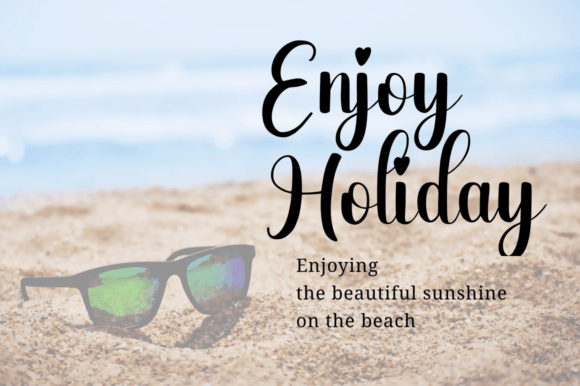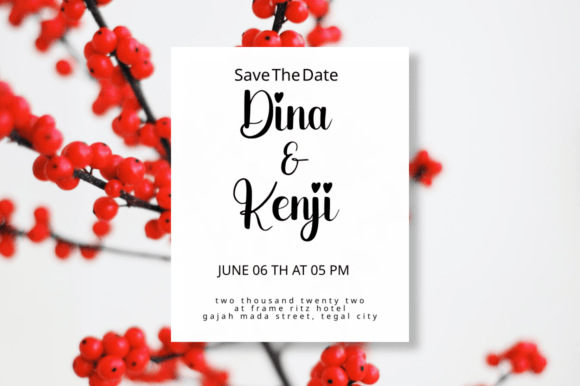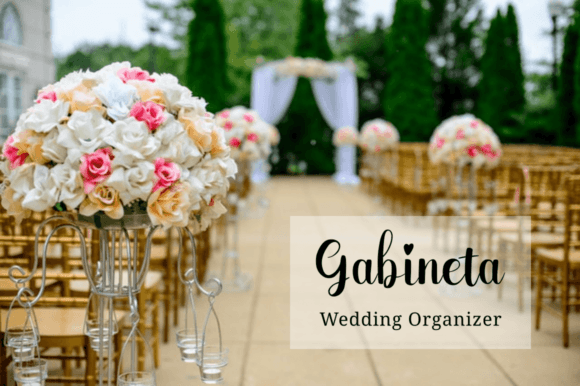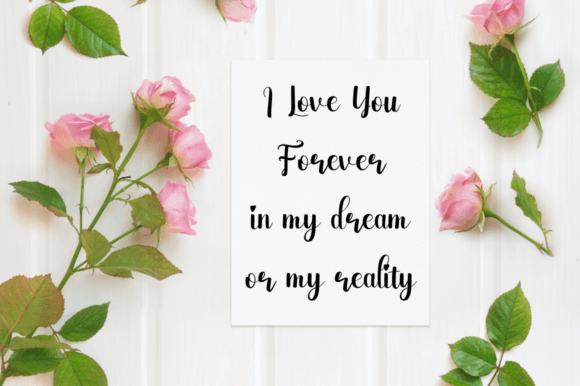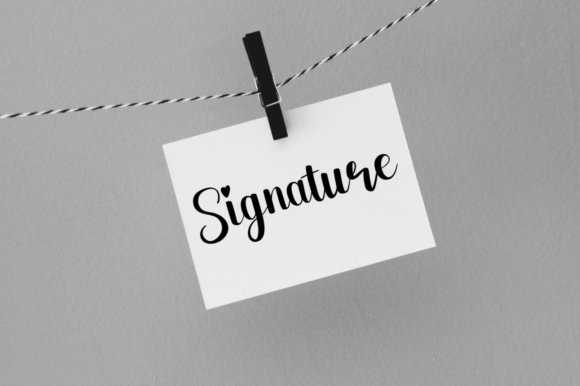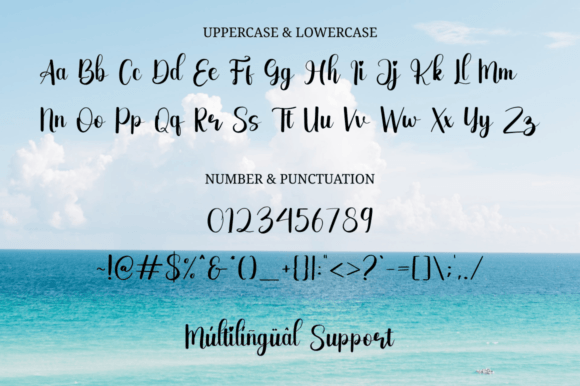
Introducing Blue Beach Font: Elevate Your Designs with a Touch of Natural Elegance
Are you on the hunt for a font that embodies the essence of natural beauty and sophistication? Look no further than the Blue Beach Font, a stunning handwritten typeface that is perfect for a wide range of creative projects. From logotypes and headlines to corporate identity and brand design, this versatile font is sure to make a lasting impression.
What Makes Blue Beach Font So Special?
Blue Beach Font is a beautiful, natural handwritten font that exudes elegance and charm. Its unique, flowing script is reminiscent of a summer day by the ocean, making it the perfect choice for designers and crafters looking to add a touch of warmth and personality to their work. Whether you’re designing a logo, creating a brand identity, or simply looking for a font to use in your next creative project, Blue Beach Font is sure to impress.
One of the things that sets Blue Beach Font apart is its incredible versatility. This font is perfect for a wide range of design projects, including:
- Logotypes and branding: Create a lasting impression with a custom logotype that showcases your brand’s unique personality.
- Headlines and titles: Add a touch of elegance and sophistication to your headlines and titles.
- Corporate identity: Use Blue Beach Font to create a cohesive brand identity that sets your business apart.
- Apparel industry: Design stunning apparel, from t-shirts to hoodies, with this beautiful font.
- Posters and flyers: Create eye-catching posters and flyers that grab attention.
- Music, movies, and games: Add a touch of glamour to your music, movie, or game designs.
- Magazines and books: Use Blue Beach Font to create stunning magazine and book designs.
- Comics and cartoons: Bring your comics and cartoons to life with this fun and playful font.
- YouTube and Instagram: Use Blue Beach Font to create engaging social media content.
- Websites: Add a touch of elegance to your website design with this beautiful font.
Why Choose Blue Beach Font?
So why choose Blue Beach Font over other fonts on the market? Here are just a few reasons why this font stands out:
- Unique and elegant design: Blue Beach Font features a unique, flowing script that is sure to turn heads.
- Highly versatile: This font can be used for a wide range of design projects, from logotypes to posters.
- Easy to read: Despite its elegant design, Blue Beach Font is highly legible, making it perfect for use in body text.
- Supports multiple languages: This font supports multiple languages, making it a great choice for designers working on international projects.
Tips for Using Blue Beach Font
To get the most out of Blue Beach Font, here are a few tips to keep in mind:
- Use it sparingly: While Blue Beach Font is beautiful, it can be overwhelming if used too much. Use it sparingly to create a lasting impression.
- Pair it with other fonts: Experiment with pairing Blue Beach Font with other fonts to create a unique and visually appealing design.
- Adjust the size and color: Don’t be afraid to experiment with different sizes and colors to find the perfect combination for your design.
In conclusion, Blue Beach Font is a stunning handwritten font that is perfect for designers and crafters looking to add a touch of natural elegance to their work. With its unique design, versatility, and ease of use, this font is sure to become a staple in your design toolkit. So why wait? Download Blue Beach Font today and start elevating your designs to the next level.
Whether you’re a seasoned designer or just starting out, Blue Beach Font is a must-have font for any creative project. Its beauty, elegance, and versatility make it the perfect choice for a wide range of design applications. So go ahead, get creative, and see what amazing designs you can create with Blue Beach Font!